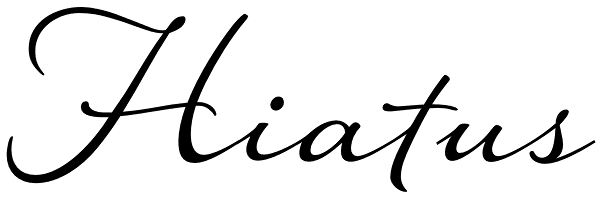
Hiatus
Hiatus bridges the gap between formal scripts used for invitations and more classic settings and casual scripts that exude a warmer tone. Like many formal scripts, Hiatus is fully connecting. Its low body height combined with generous letterspacing...